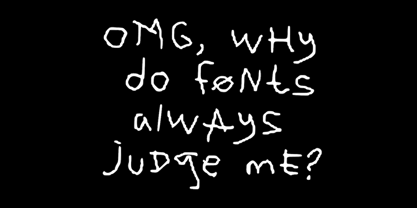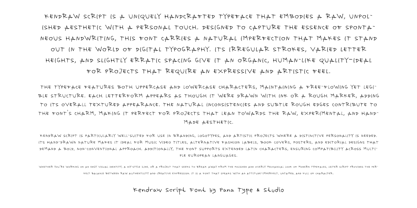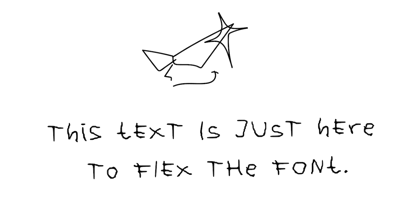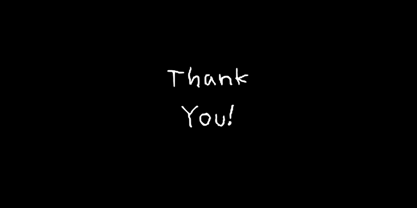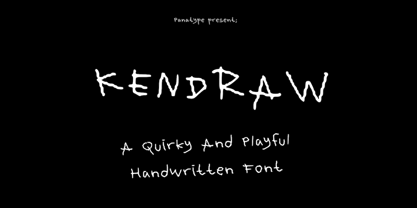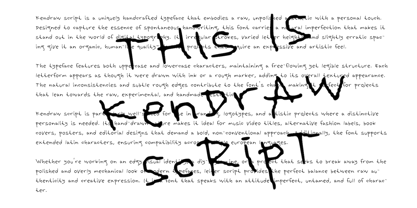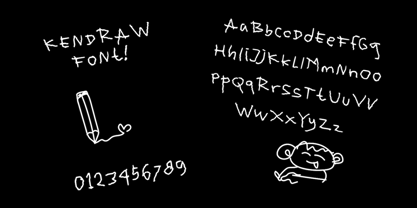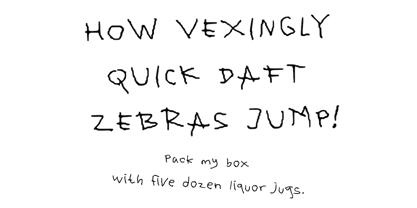
Kendraw
by Panatype Studio
The Kendraw Font Family was designed by Ajusia and published by Panatype Studio. Kendraw contains 1 styles.
Introducing Kendraw Font, a raw and expressive handwritten typeface designed to bring an organic, imperfect, and artistic touch to your projects. With its rough strokes and irregular letterforms, this font captures the beauty of spontaneous handwriting, making it the perfect choice for creative branding, hand-drawn logos, album covers, poster designs, and experimental typography.